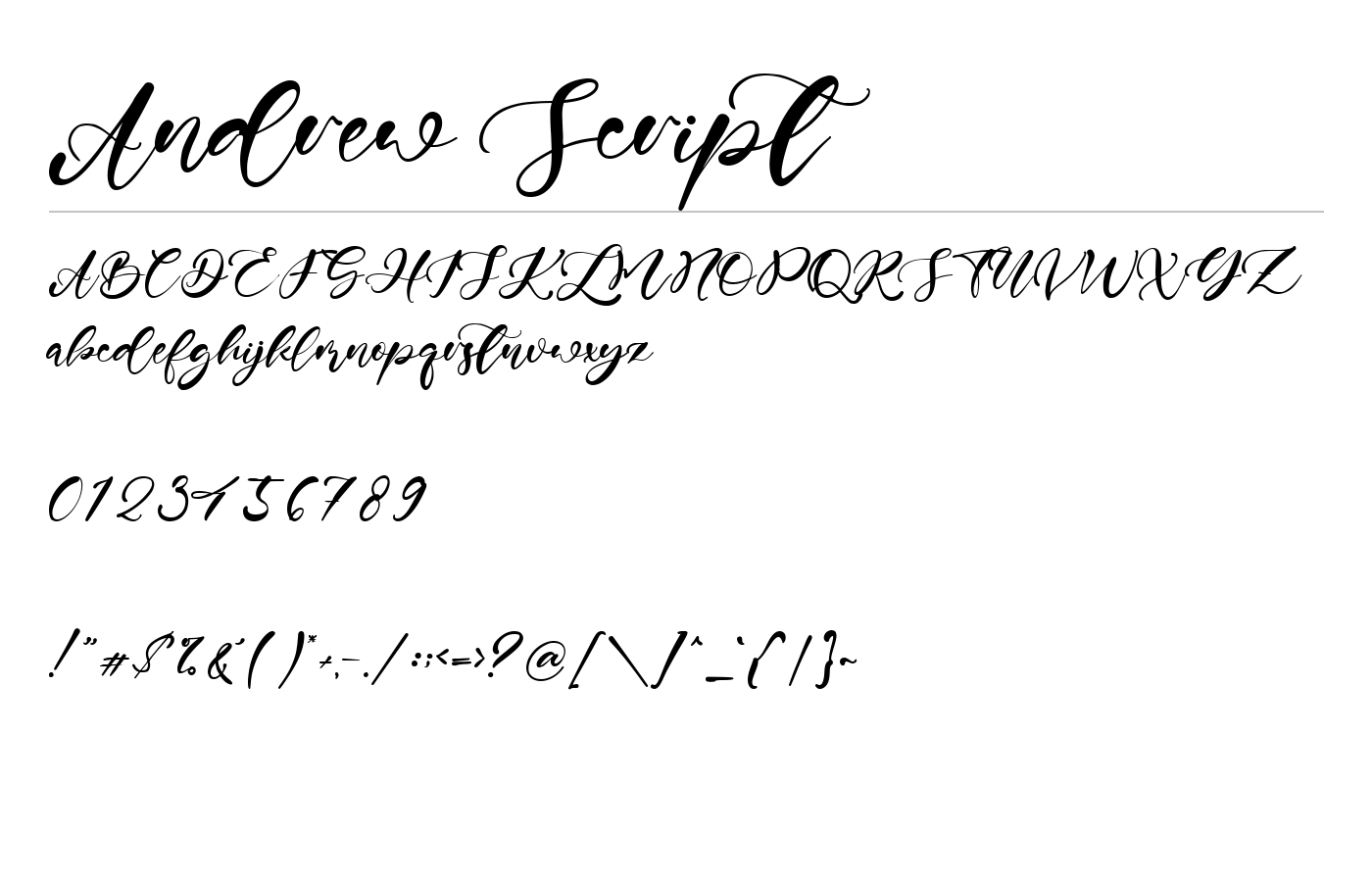
Andrew Script is an elegant and flowing script font with a calligraphic style that features smooth, connected strokes and varied line thicknesses. Its graceful curves and refined letterforms make it ideal for sophisticated branding, invitations, and stylish headlines, adding a personal, handcrafted touch that feels both classic and contemporary. This font works best where a romantic, creative, or high-end look is desired.
Andrew Script Font
About Andrew Script Font
| Font family | Andrew Script Font |